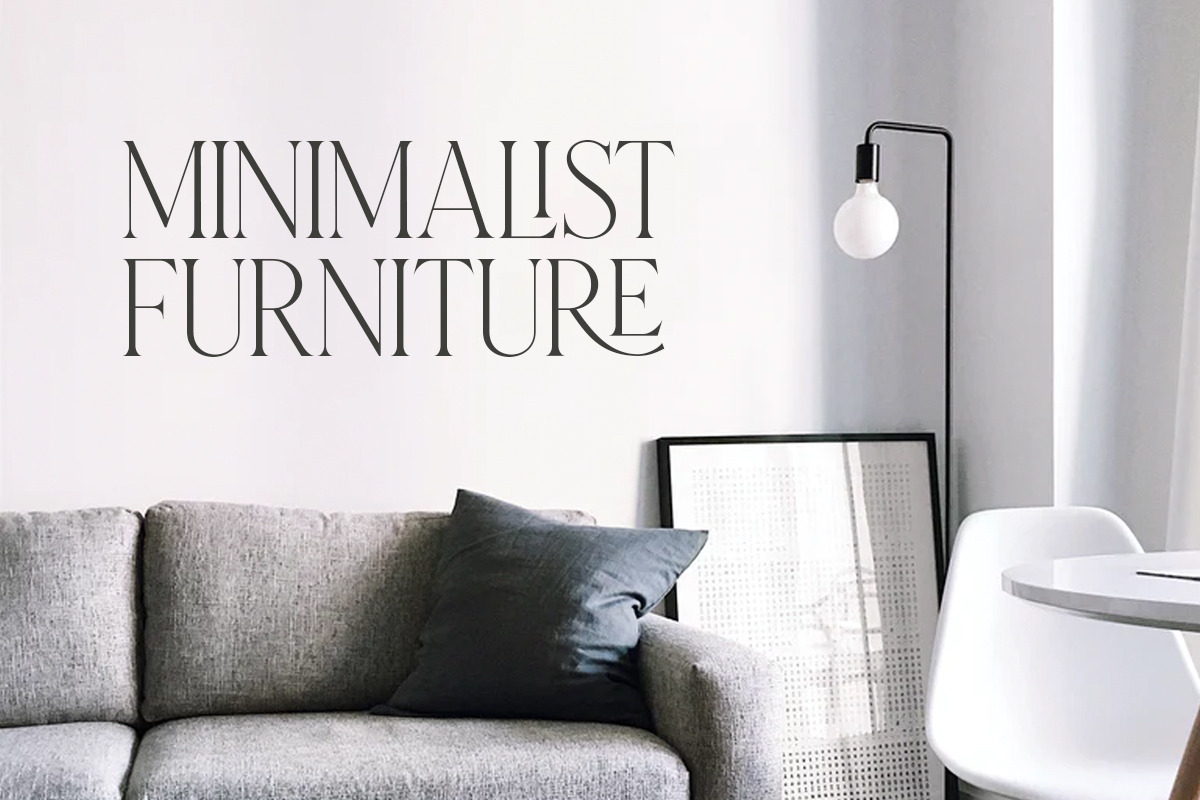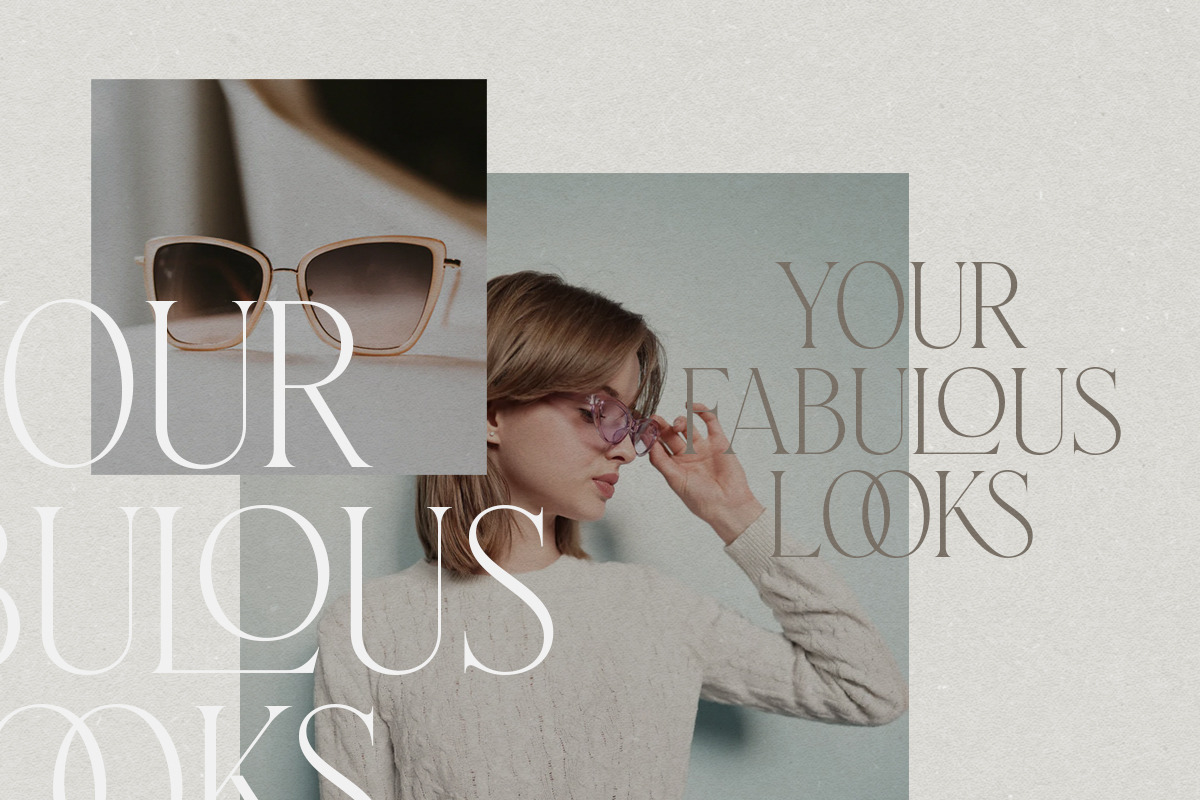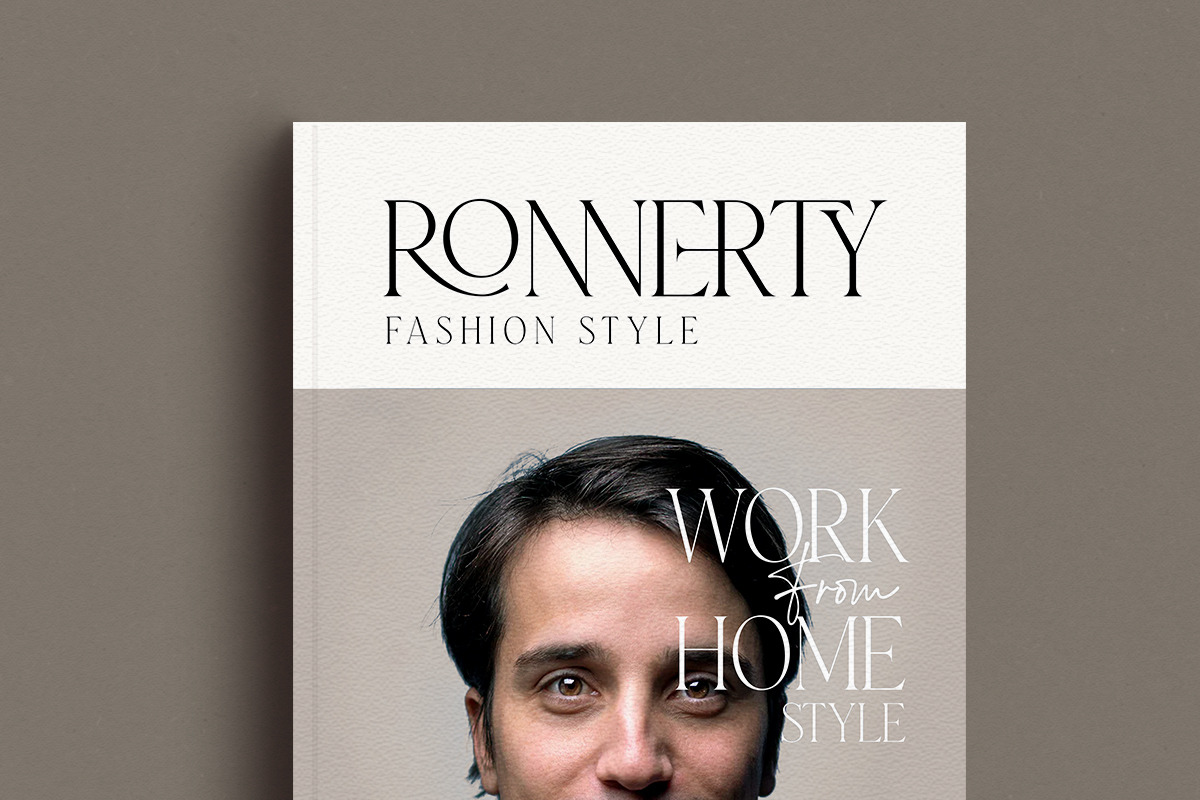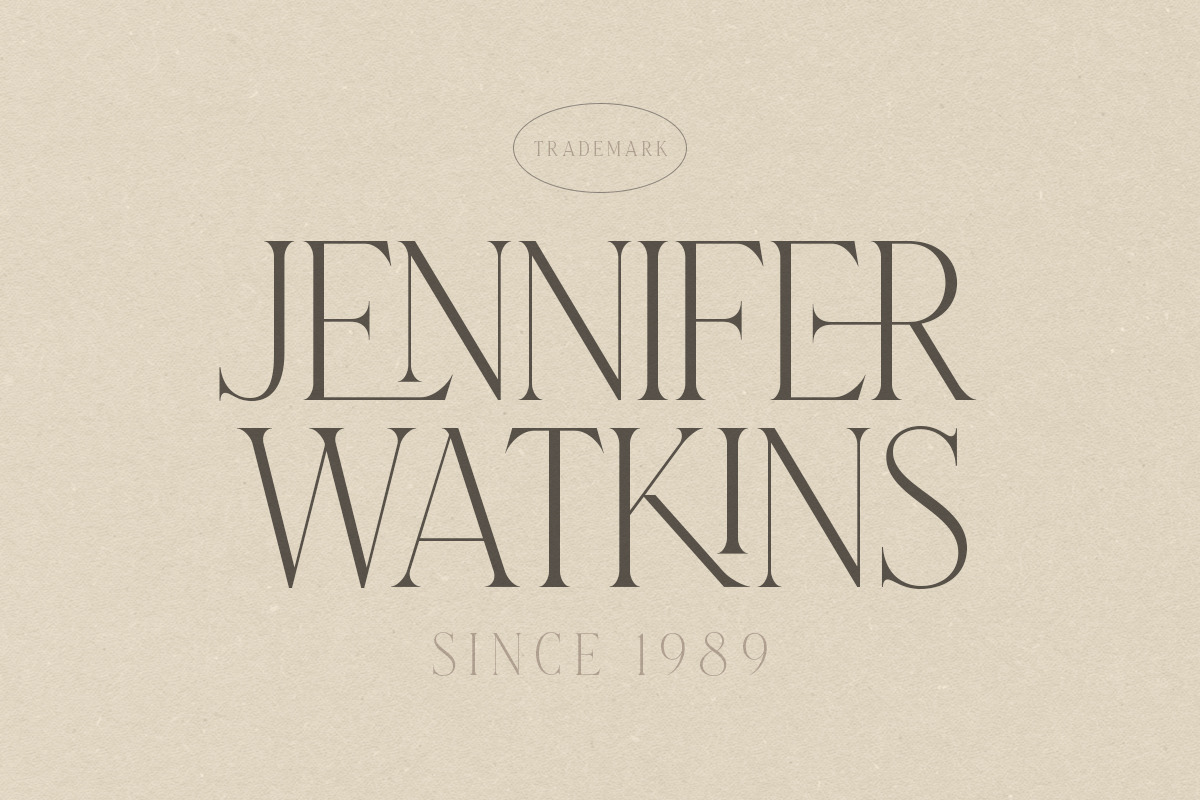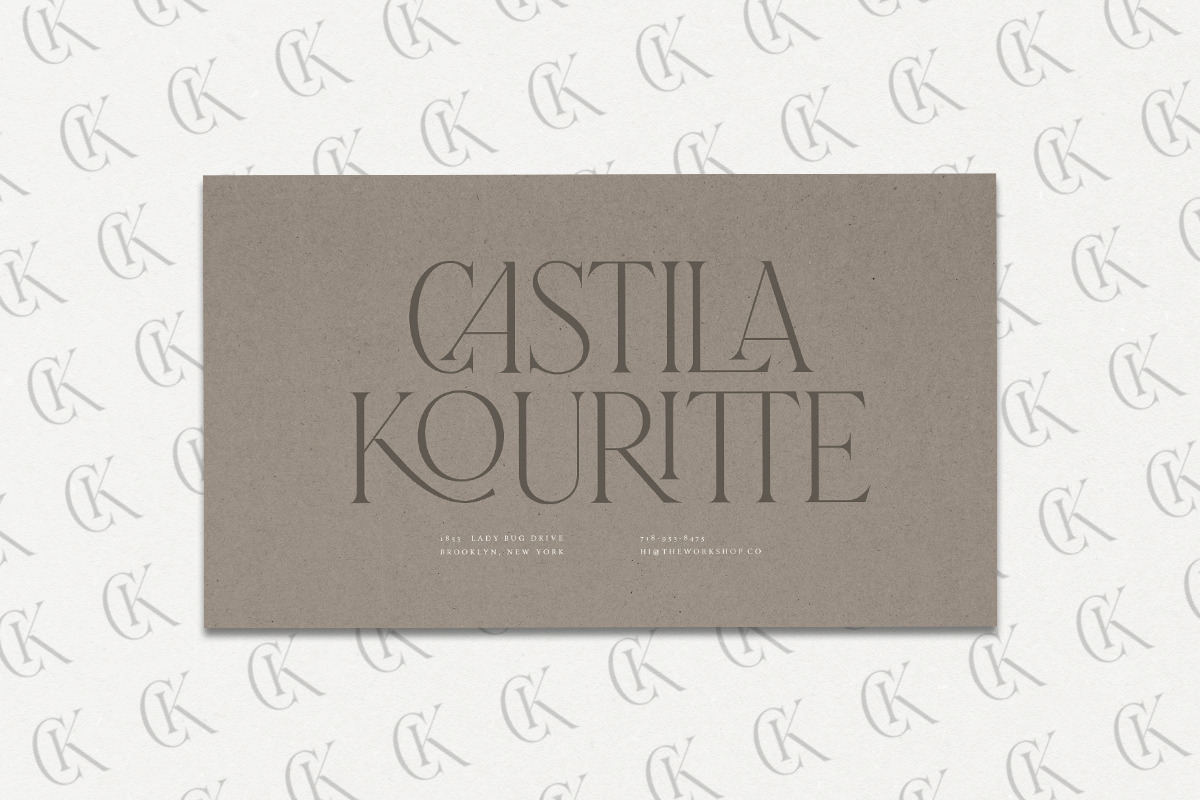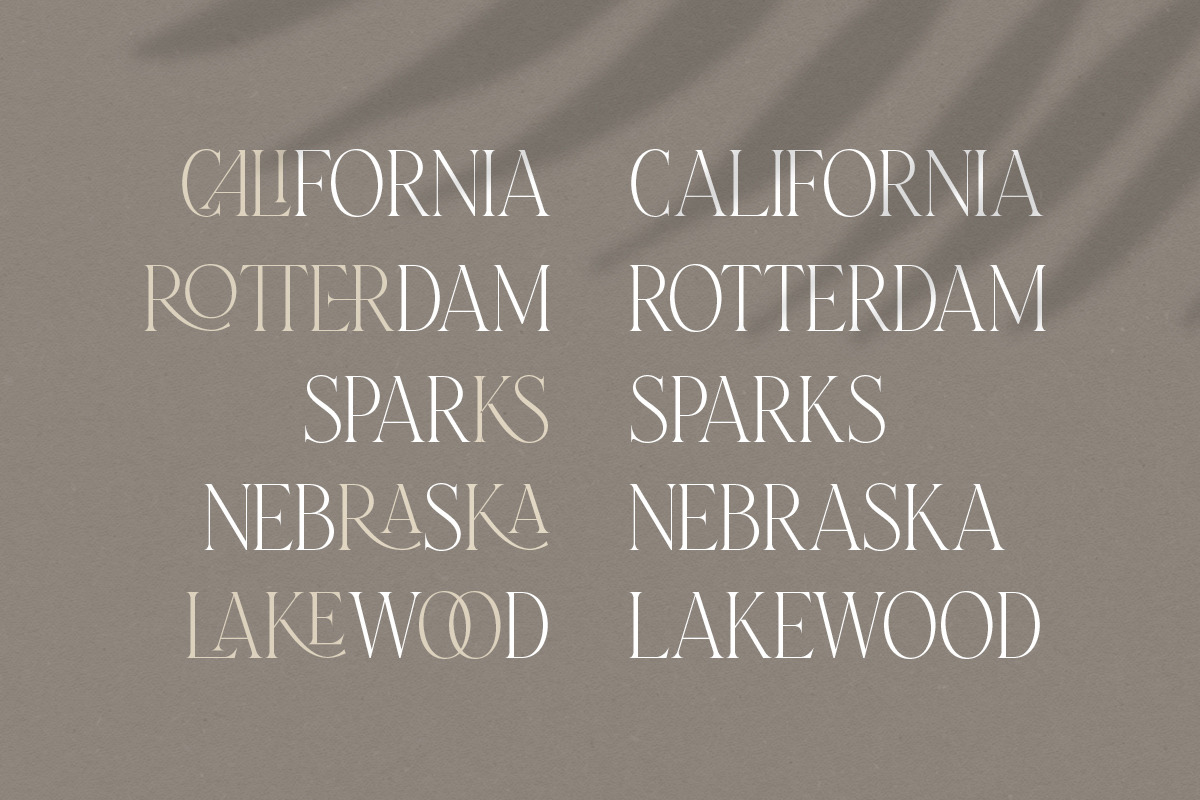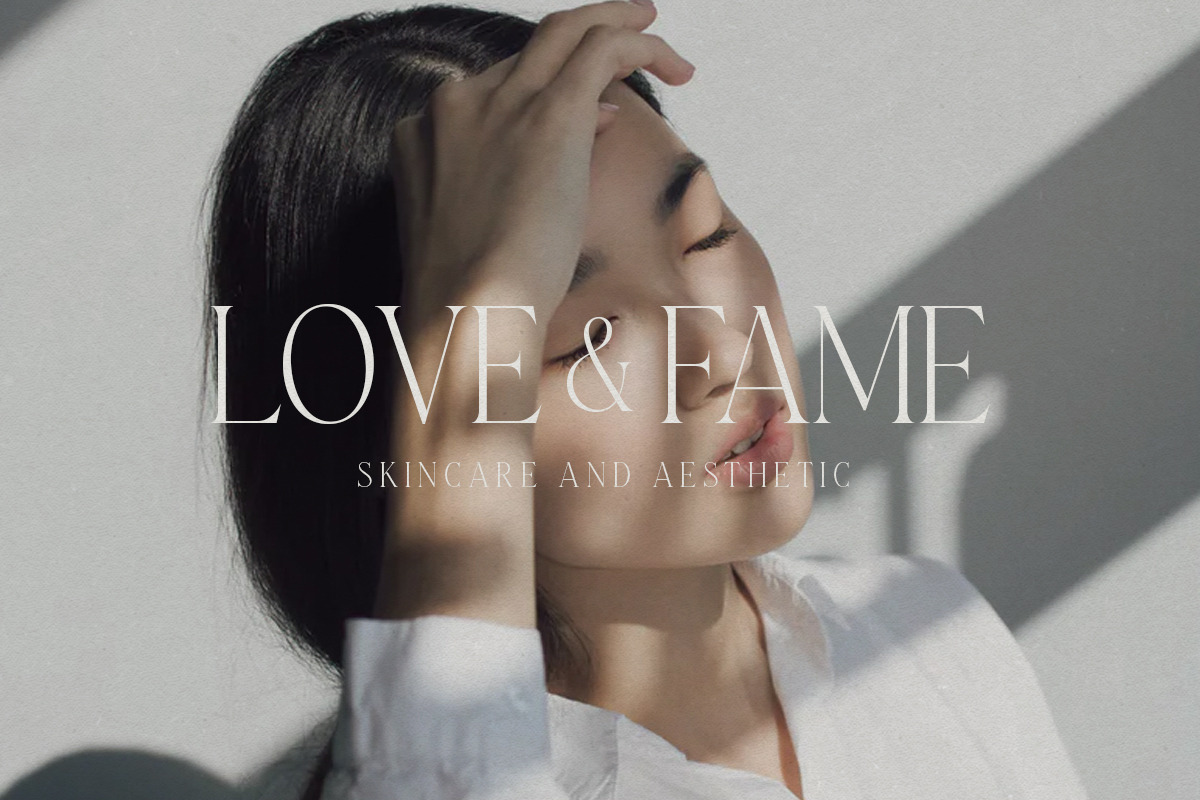
Laterlocks - All Caps Ligature Serif
Introducing, Laterlocks, A sophisticated ligature serif from us. This typeface has been made carefully to make sure its premium quality and luxury feel. The ligatures makes this typeface unique and stands out rather than the regular serif font, very suitable for logo, headline, tittle, and the other various formal forms such as invitations, labels, logos, magazines, books, greeting / wedding cards, packaging, fashion, make up, stationery, novels, labels or any type of advertising purpose.
- alternates
- swashes
I use Laterlocks as a display font for formal applications. The included ligatures can make the font stand out and grab attention, which is ideal for advertising or headings where you want to catch the reader's attention. You can use the font for a simple elegant look or for a more stylized look when you use the included ligatures. Offering Ligatures and Alternates in a font makes the font more flexible and therefore cost-effective.